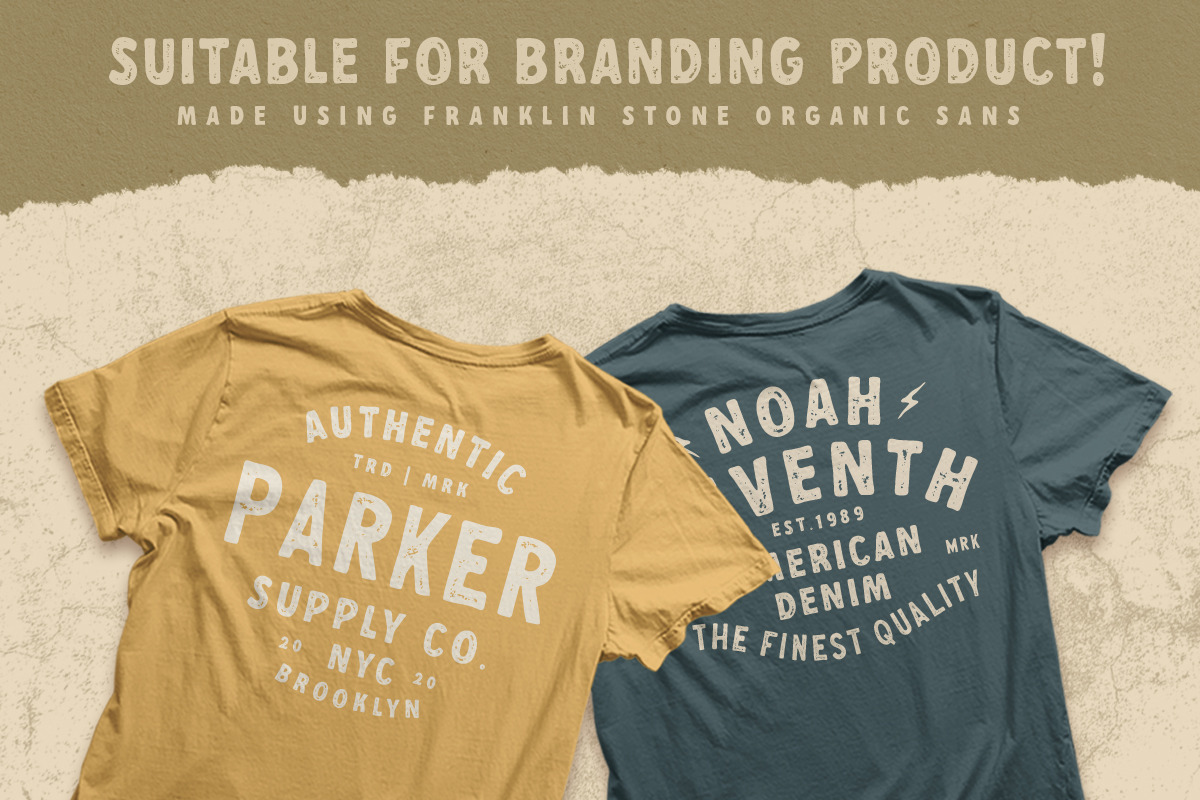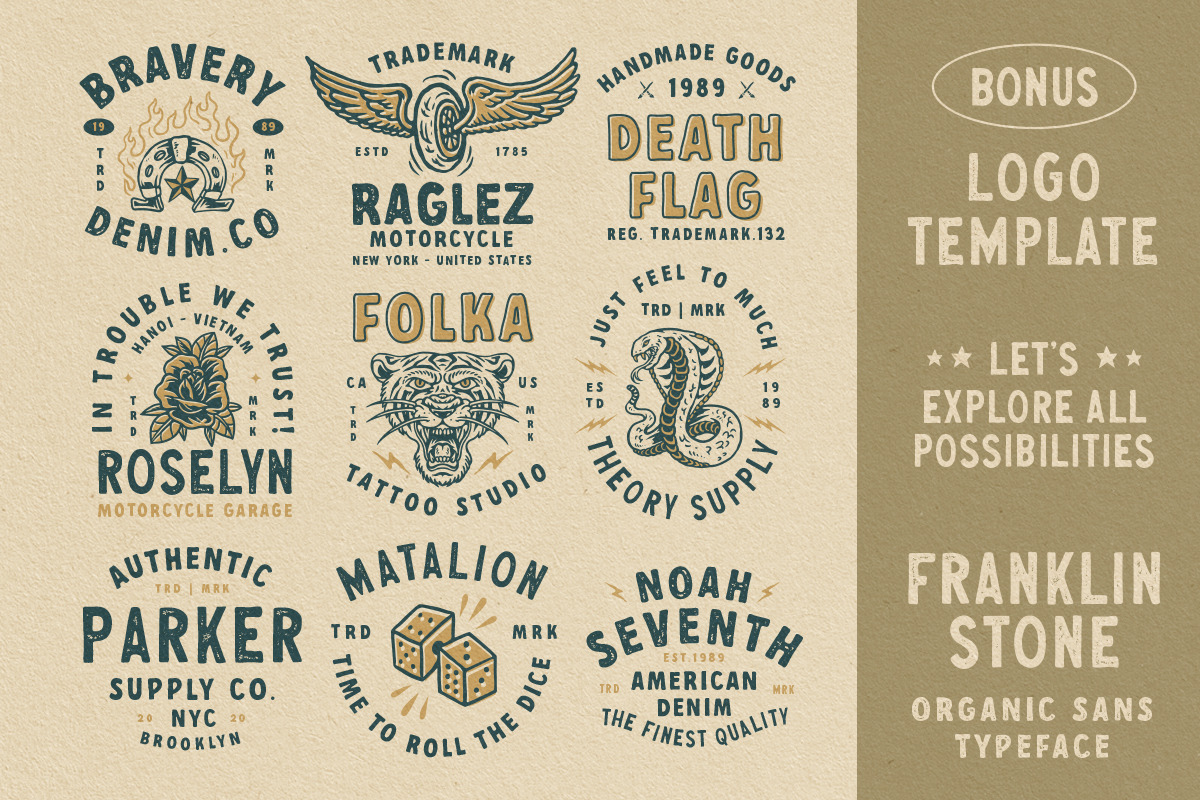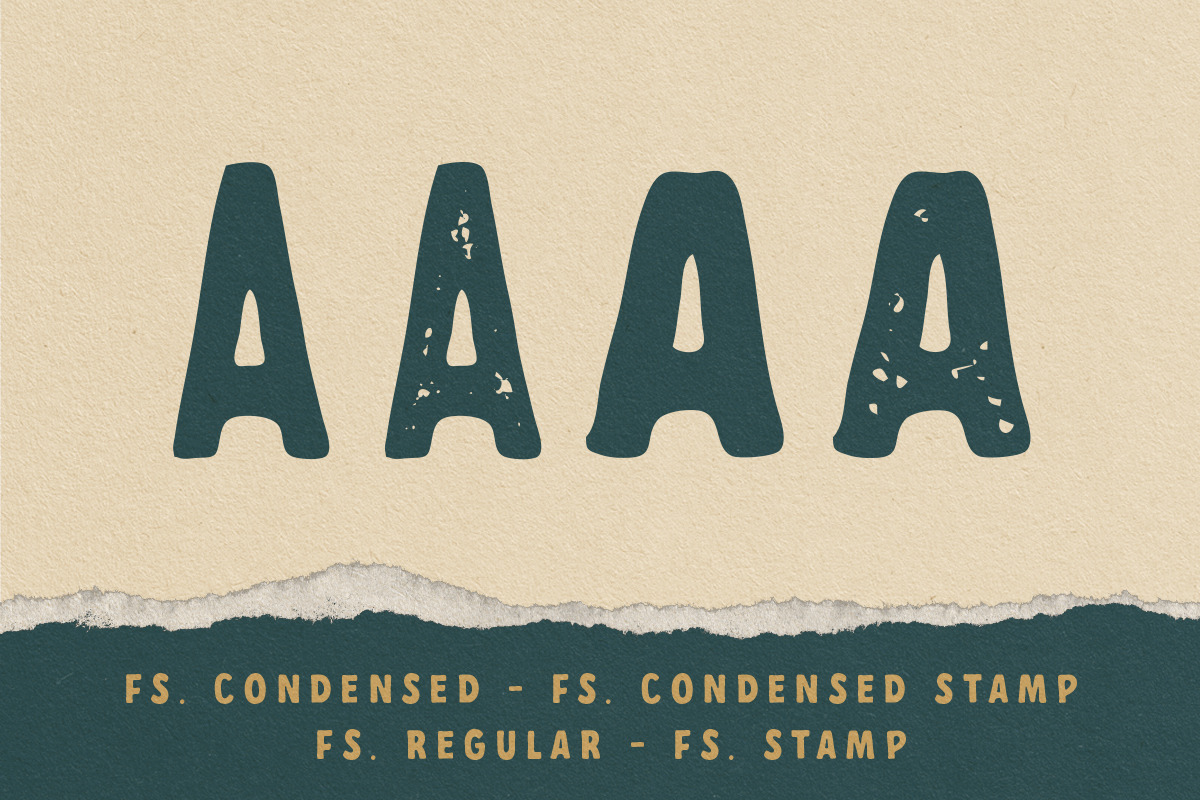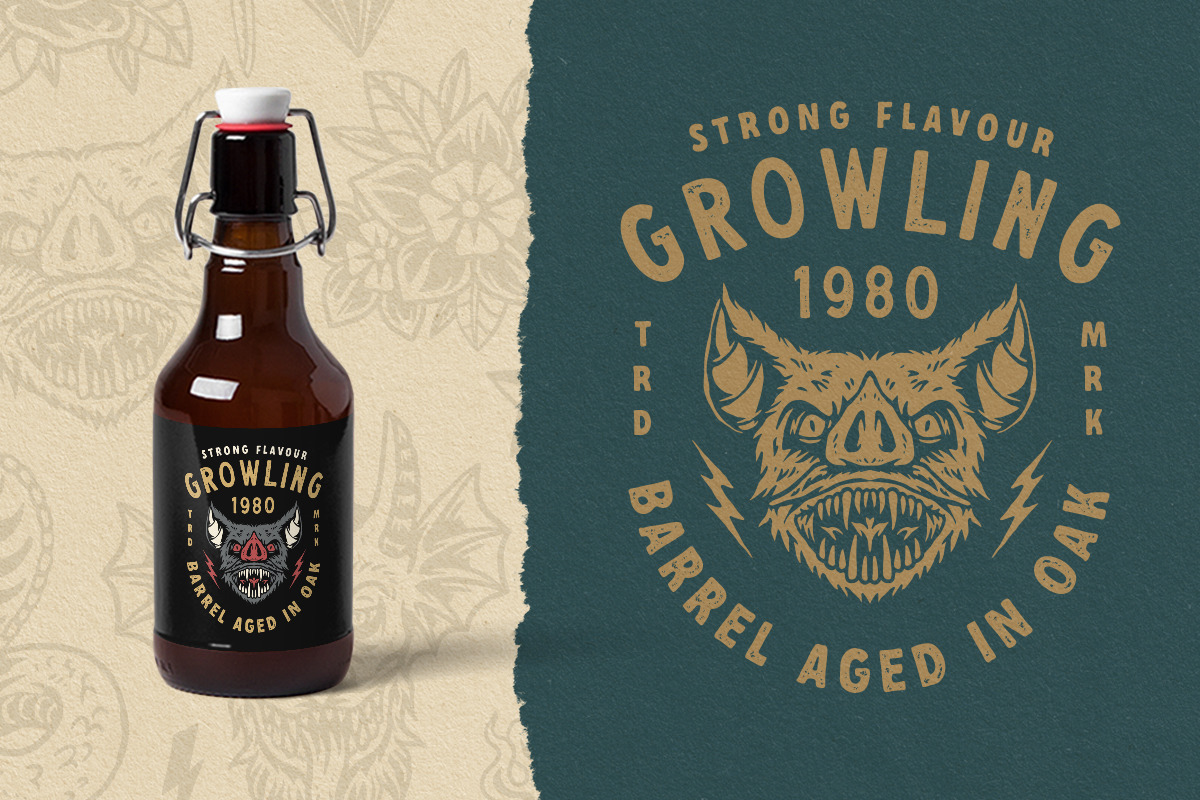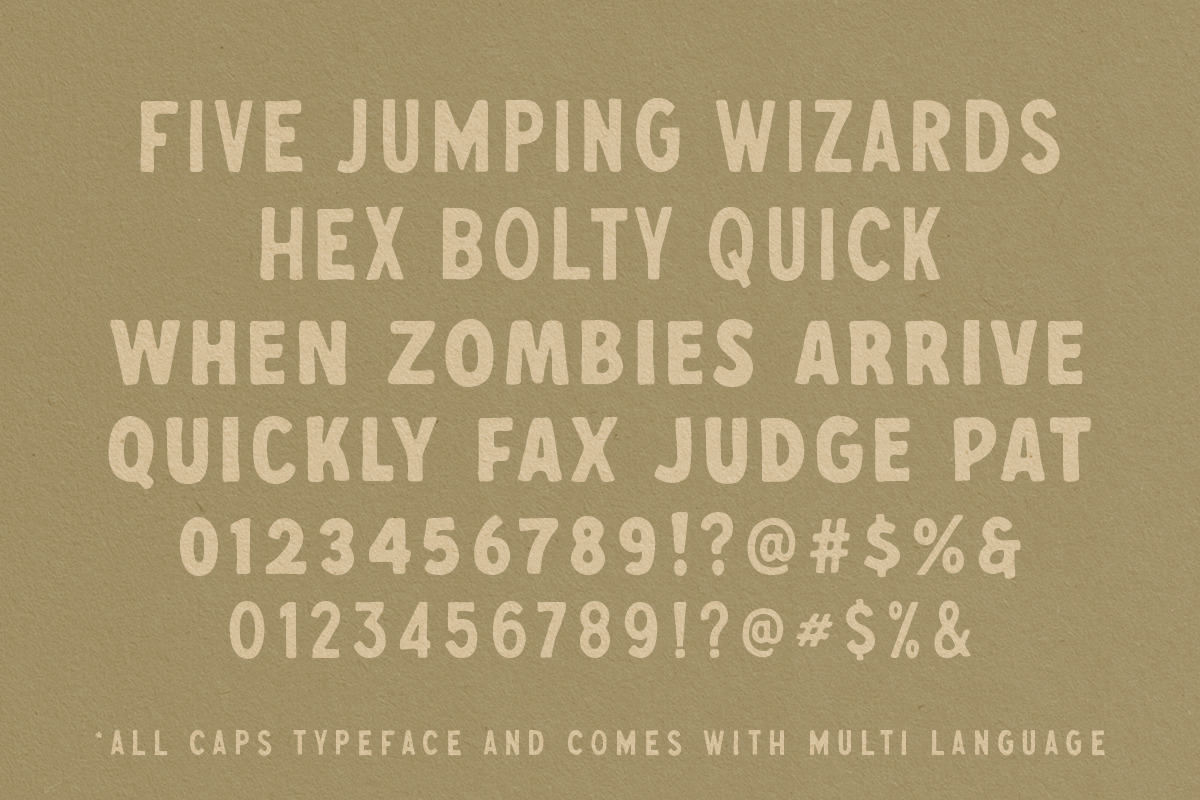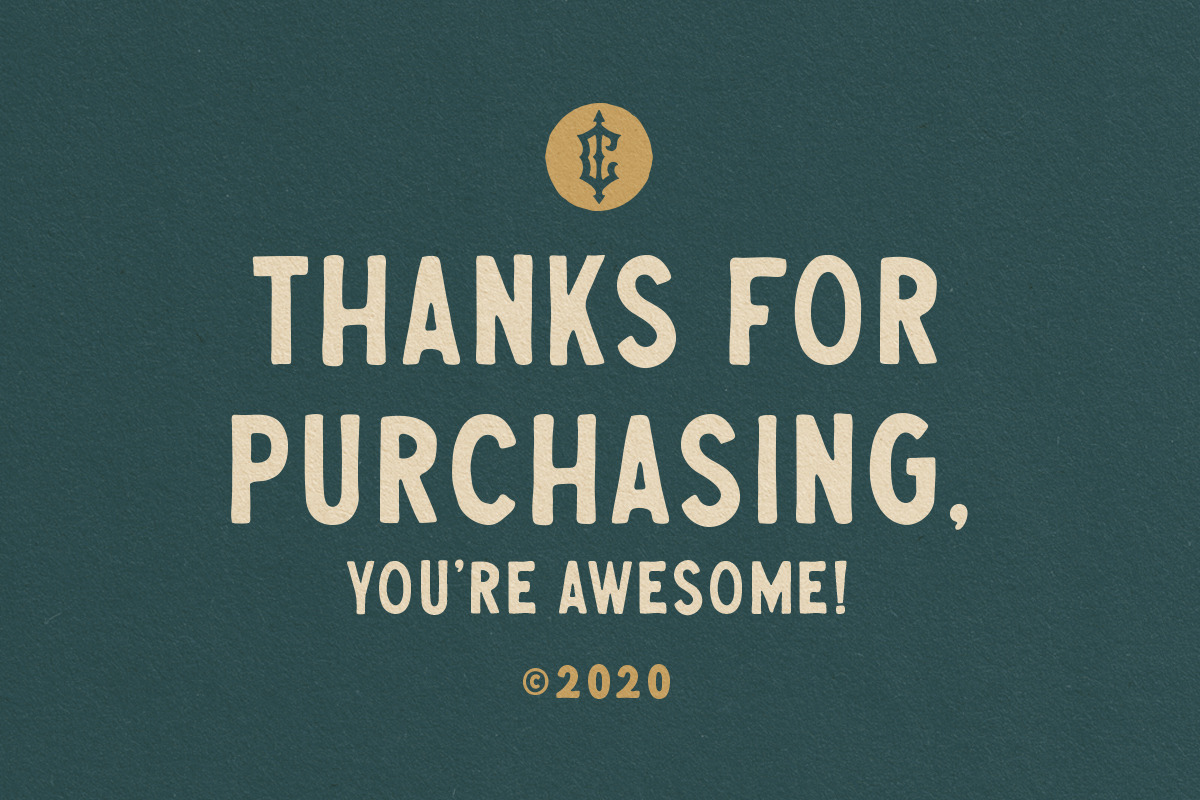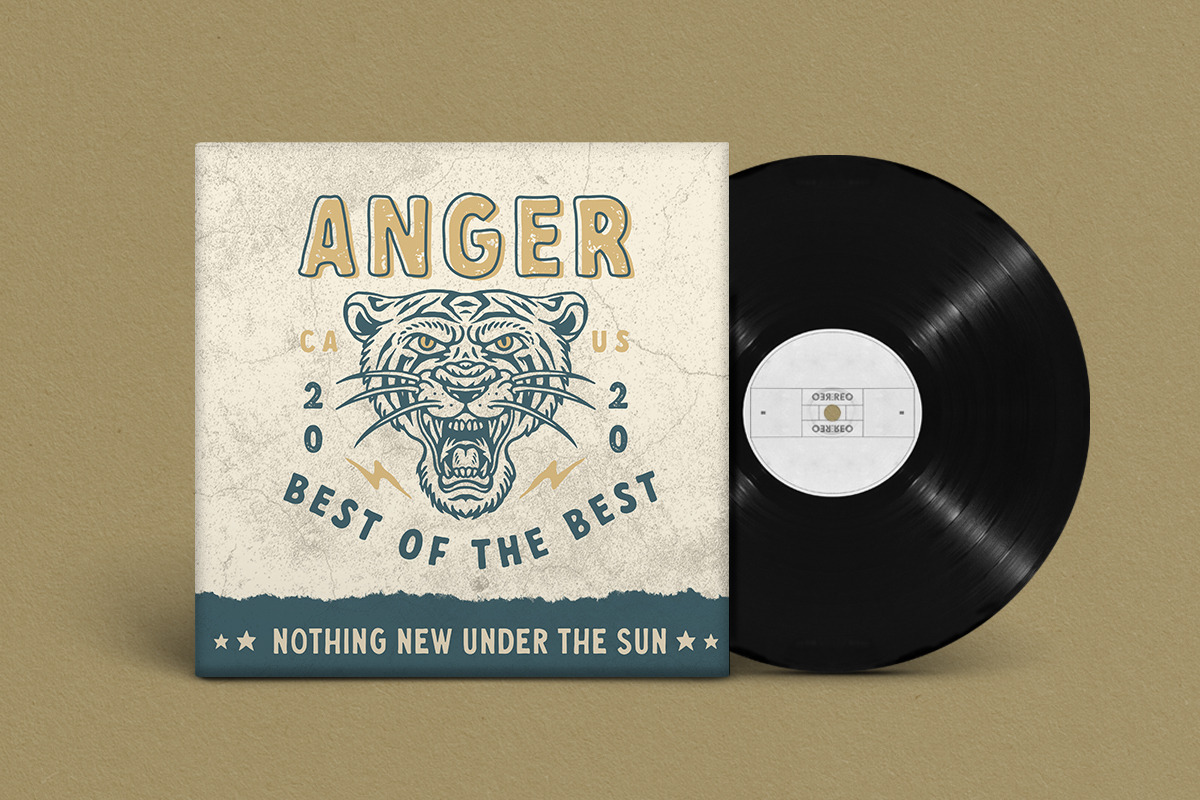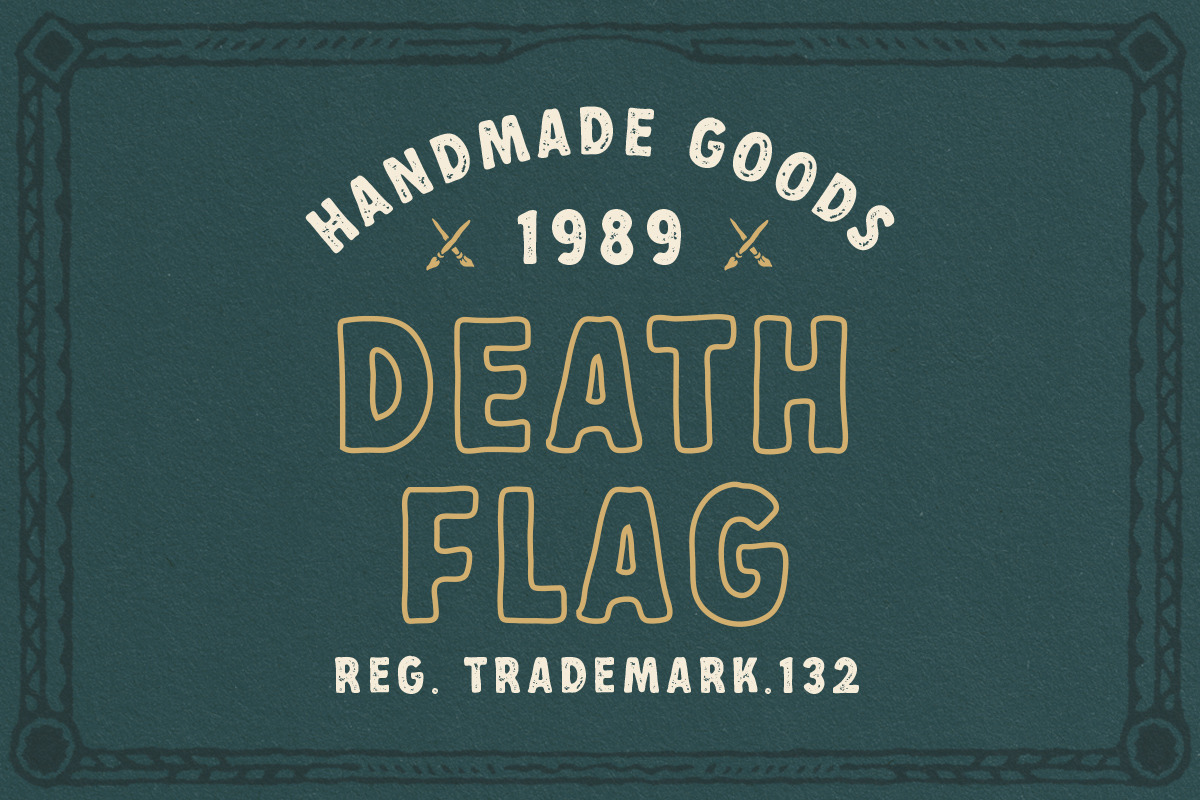
Franklin Stone + Extras
Franklin Stone is a organic hand drawn typeface inspired by vintage type with handdrawn feel. Comes with regular, condensed and stamp. Also come with FREE illustrations and editable logo to make better design. This typefaces is perfect for people looking for vintage aesthetic. Suitable for any graphic designs such as branding materials, t-shirt, print, logo, poster, t-shirt, quotes .etc